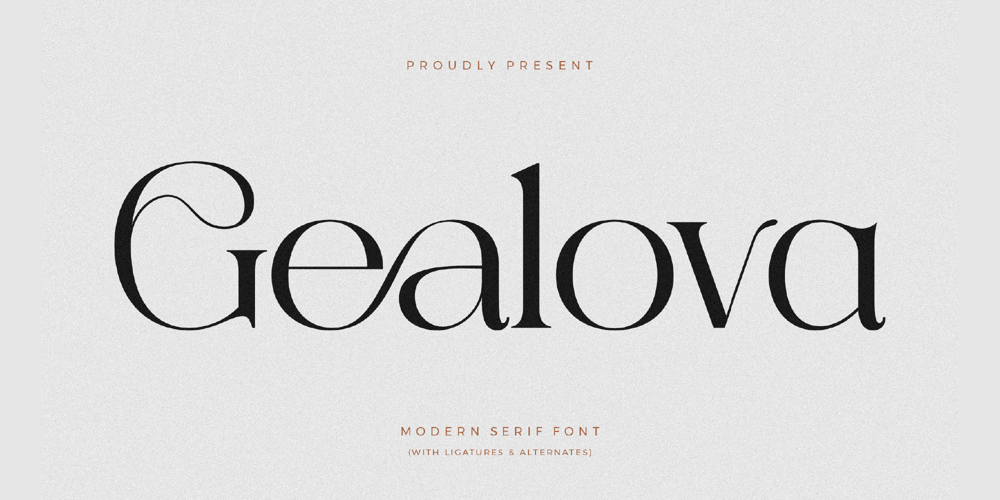
Gealova Font Family was designed by Heru Utama Putra and published by Letterena Studios. Gealova contains 2 styles and family package options. Gealova is a modern and stylish serif font. Its elegant curves and delicate serifs make it a perfect choice for any design project that requires a touch of sophistication and class.